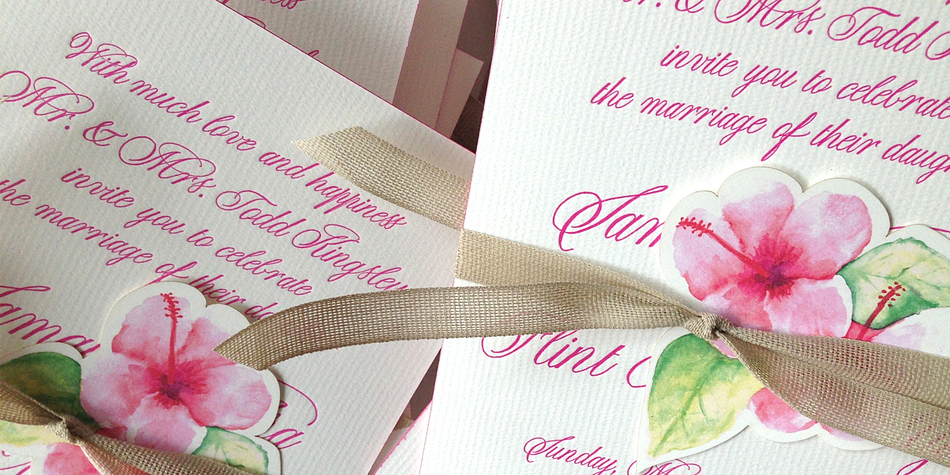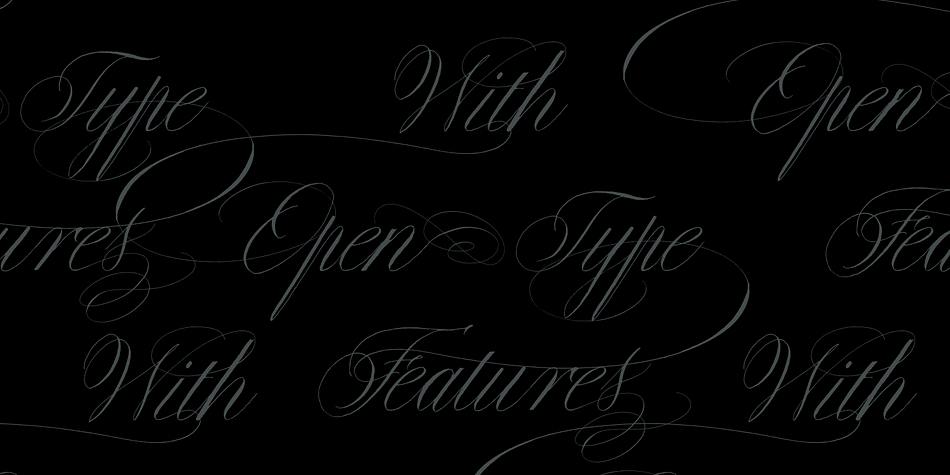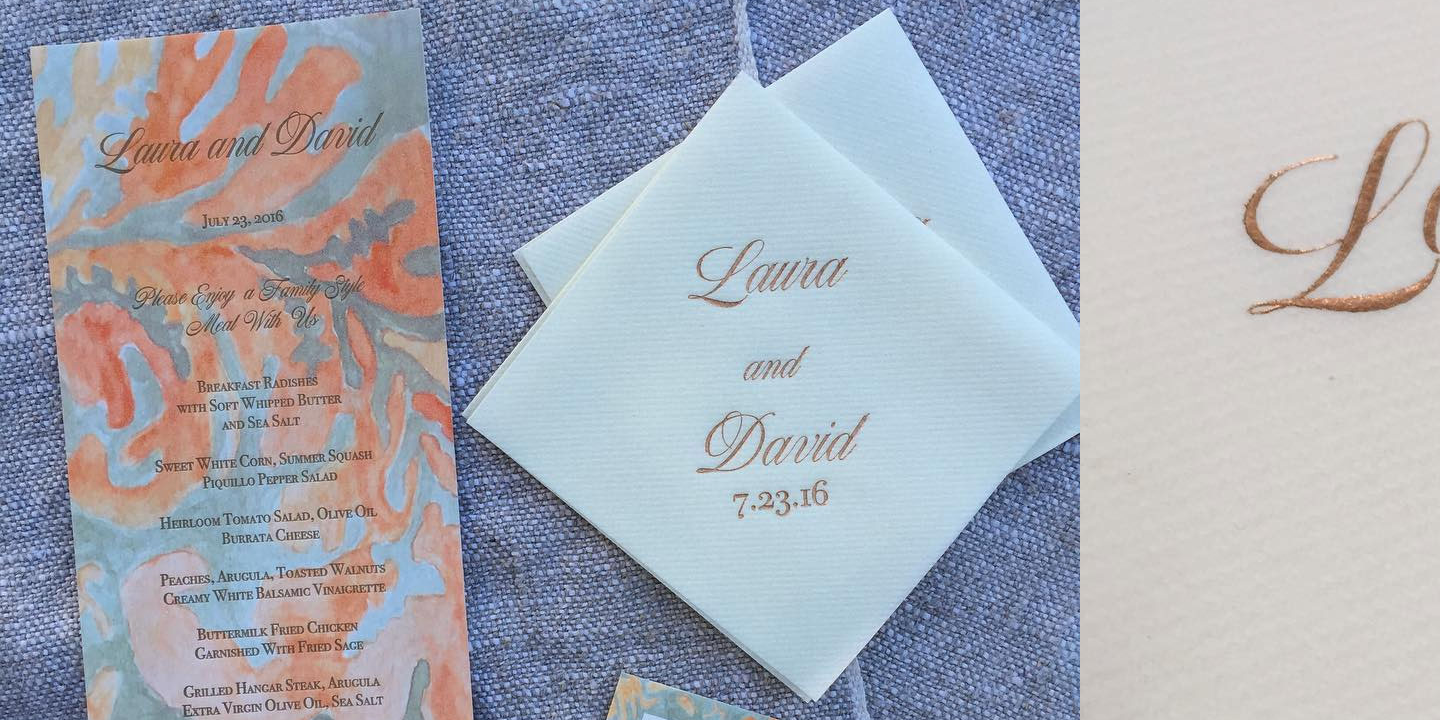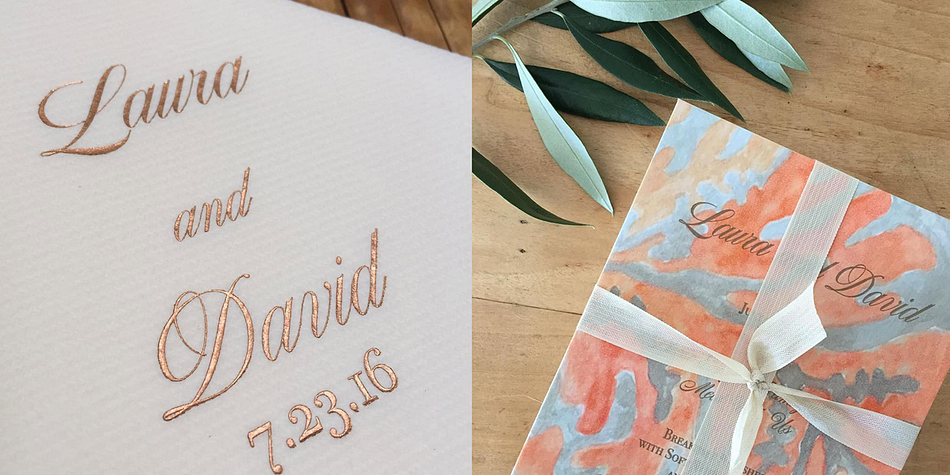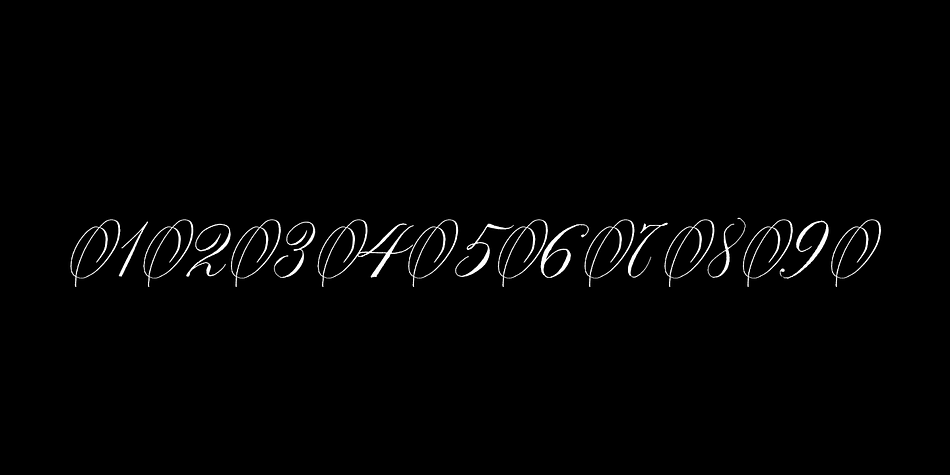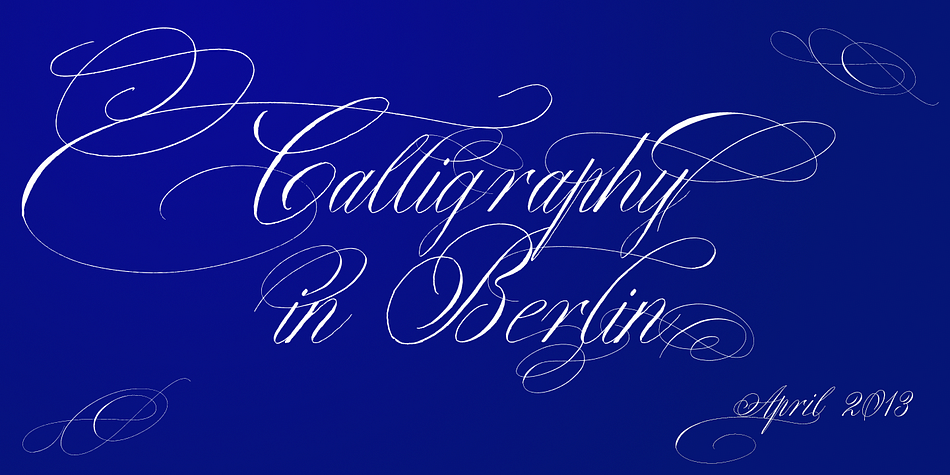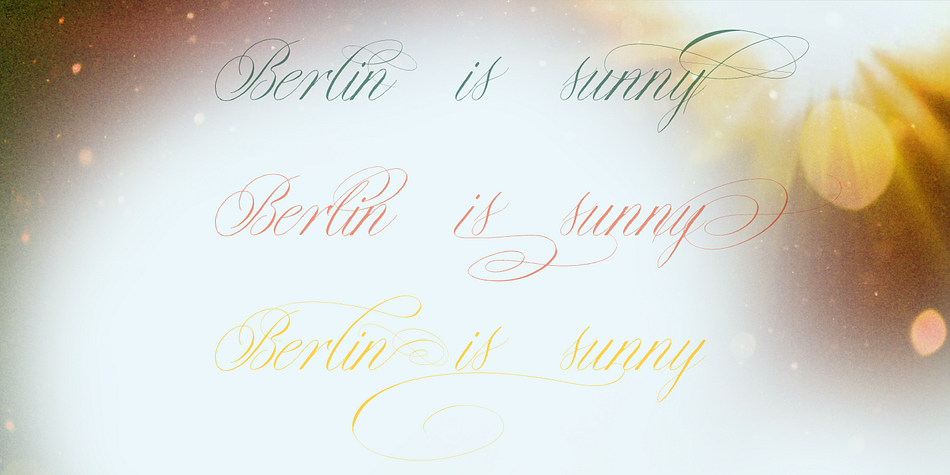
Copperlove is a script font published by Resistenza.es.
Copperlove was born during a very long and hard wintertime in Berlin. This font is based on Giuseppe Salerno’s Copperplate calligraphy. Oblique nib and sepia ink were the tool used to create this sublime english typeface.
There are also many opentype features like alternates and beautiful swashes.